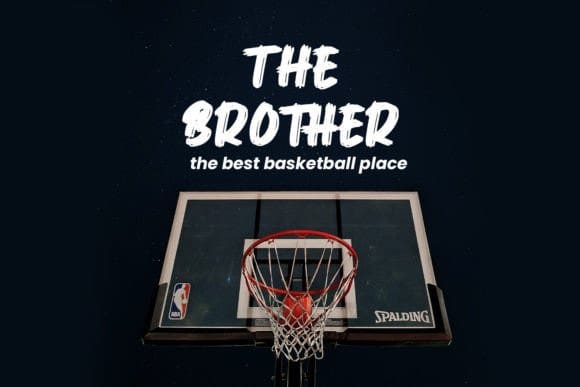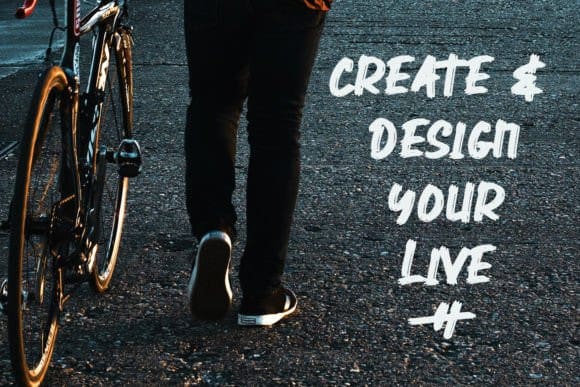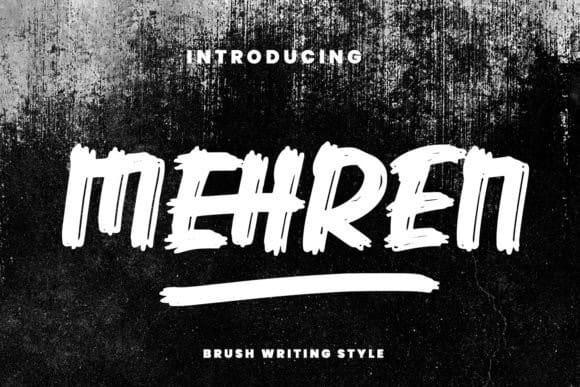
Mehren Brush Font
Mehren Brush Font is a cool and modern brush display font. Add it confidently to your projects and you will be amazed by the outcome generated!